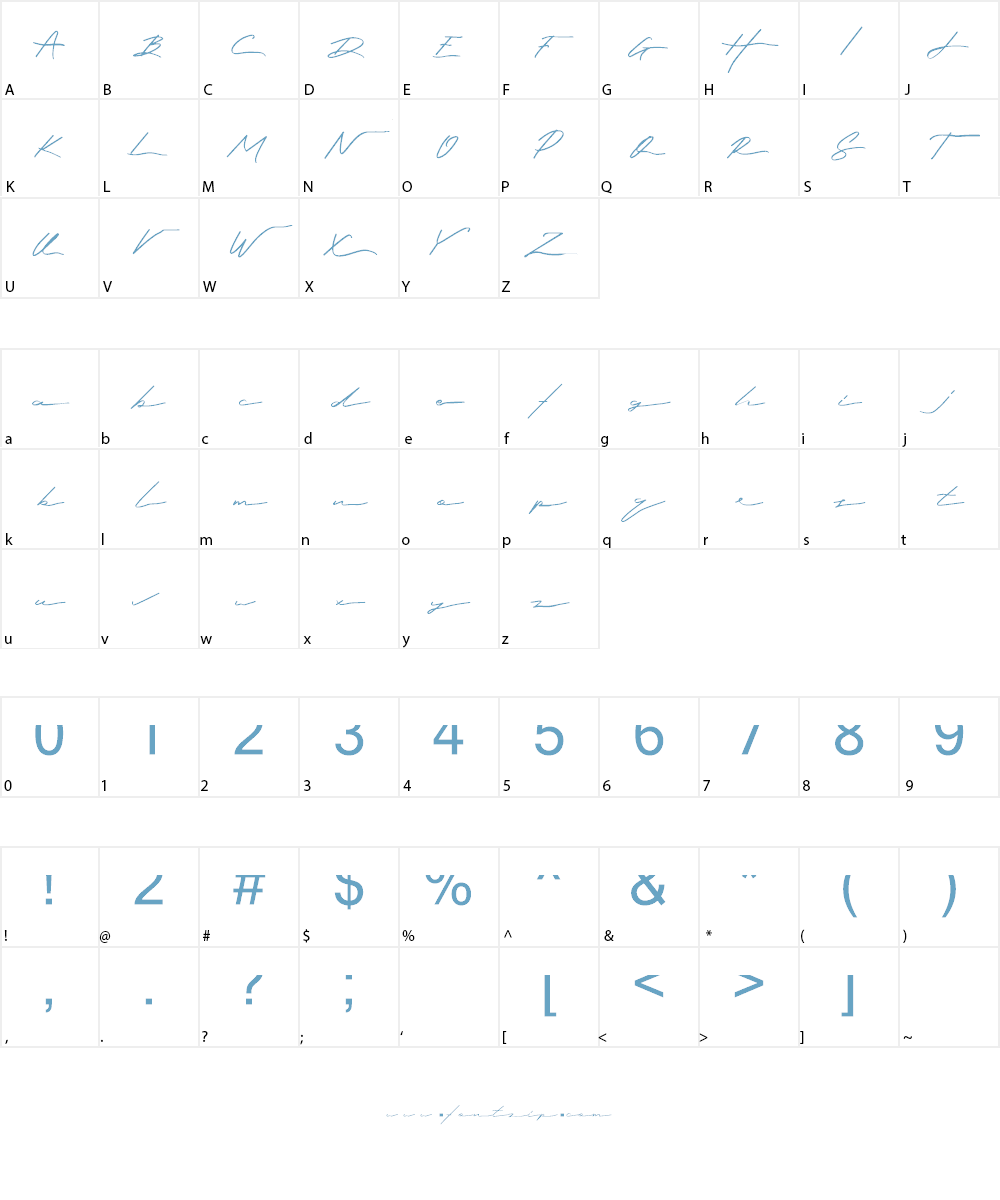
royalia is a handwriting font suitable for business cards, calendars, watermarks and others. this is font demo. personal use only. i hope you like it.